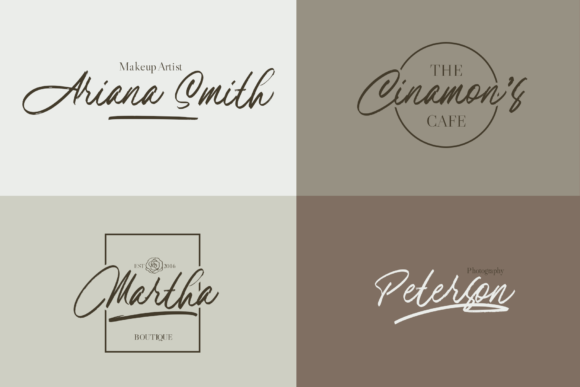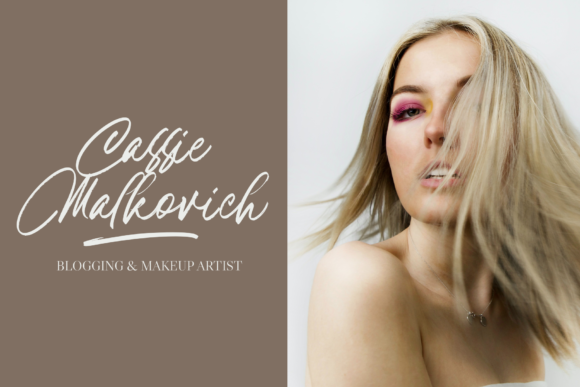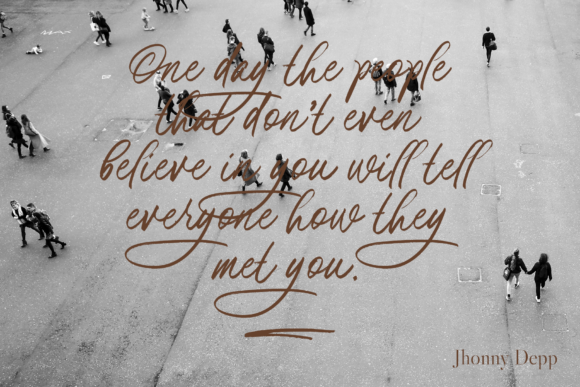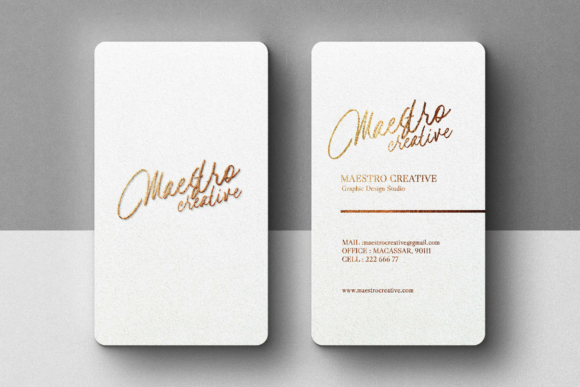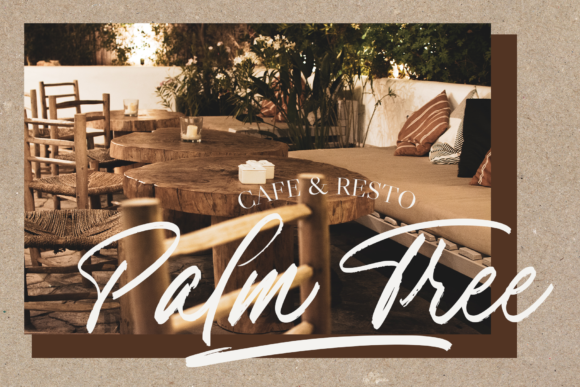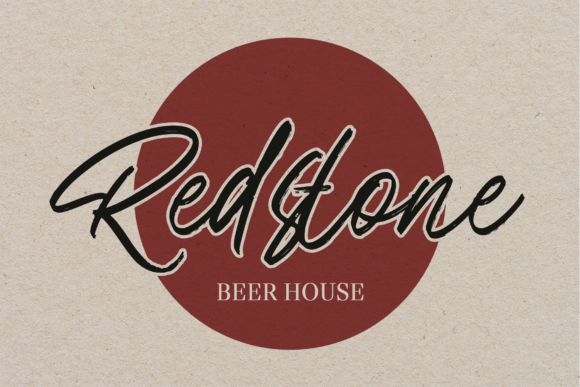
Introduction to Racutens Font
Have you ever been in the midst of a creative project, staring blankly at your screen, desperately seeking the perfect design element to bring your vision to life? For designers, this moment is all too familiar. But what if I told you that I’ve found a game-changing design resource that’s sure to spark inspiration and elevate your work? Enter the lovely Racutens Font, a stunning handwritten font crafted with the help of a brush pen.
With its flowing lines and organic feel, Racutens Font is the perfect addition to any design project. Whether you’re creating eye-catching social media posts, beautiful stationery art, or gorgeous wedding invitations, this versatile font is sure to impress. Plus, its transparent background makes it easy to combine with other design elements, giving you endless possibilities for creative expression.
As a valuable resource for designers, Racutens Font offers high-quality, free downloads that are sure to save you time and effort. So why settle for generic fonts when you can have a one-of-a-kind design element that sets your work apart? Dive into the world of Racutens Font and discover a whole new level of creative freedom.
Key Features of Racutens Font
- High-quality design resource suitable for creative projects, offering a unique and stylish look.
- Transparent background, allowing for seamless integration with any design or image.
- Comes in a single weight, perfect for those who want a clean and minimalist design.
- Unique characteristics include a modern and sleek design, making it ideal for various creative projects, such as branding, logos, and typography-based designs.
Honest Review: Racutens Font
As a designer, I’m always on the lookout for high-quality design resources to enhance my creative projects. The Racutens Font is one such resource that caught my attention, and I’m excited to share my thoughts on it.
What works well: ✨ The Racutens Font has a clean and modern design that’s perfect for a variety of creative projects. It’s a versatile font that can be used for both digital and print media. The font also has a transparent background, making it easy to layer and customize. Additionally, the font is available for free download, which is a huge plus for designers on a budget.
- Modern and versatile
Limitations: ⚠️ While the Racutens Font is a great resource, it’s not without its limitations. The font only includes a limited number of characters, which may not be suitable for projects that require extensive text. Additionally, the font’s styling may not be suitable for all design styles.
Overall, I’m impressed with the Racutens Font and would recommend it to designers looking for a high-quality, modern font. While it has some limitations, the benefits far outweigh the drawbacks.
Racutens Font is versatile and can be used in a variety of creative projects, including digital designs, presentations, and documents. Its high-quality design makes it ideal for printing or digital use. Some common use cases include:
- Creating digital designs with a transparent background
- Designing presentations and documents with a professional look
- Using in branding and marketing materials